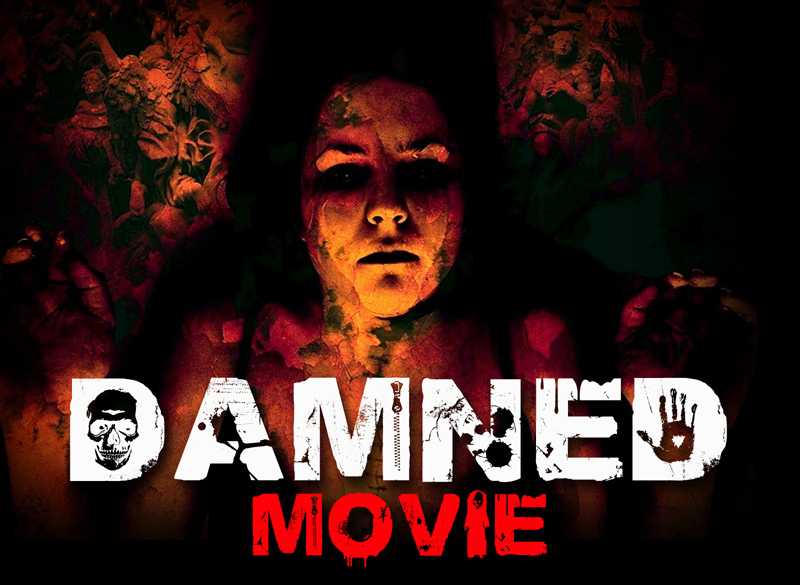
DamnedDeluxe by Steve Cloutier of PYRS Fontlab Ltd. is a free eroded display font with massive, tightly drawn capitals. Each letter is cut through by a mix of scraped patches, printed fragments, and photographic debris, giving the alphabet a rough collage character.
Concert posters are its strongest setting, since the dense silhouettes can hold their own against gritty photography and layered graphics. The same distressed, found-material texture suits album covers, streetwear merchandise, and alternative magazine spreads, where it becomes part of the editorial image instead of a neutral headline.